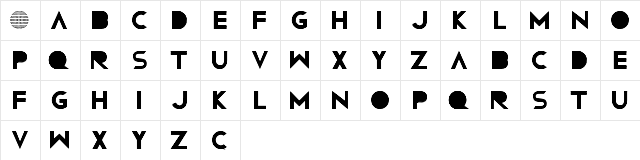
Confussion RNG Regular
Design Context for Confussion RNG Typeface
Confussion RNG offers clean, dependable letterforms without strong stylistic allegiance, making it a practical choice for designers who need flexibility.